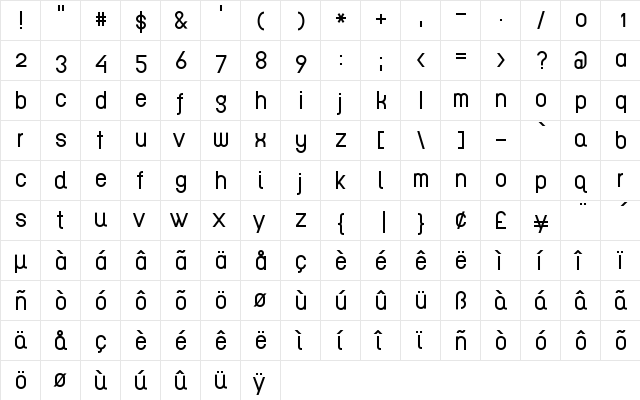
EPF LC Font Preview
EPF LC
EPF LC Font Details
| Style | LC |
| Foundry | YOFonts |
| Designer | Yamaoka Yasuhiro |
Design Context for EPF Typeface
EPF takes a measured approach to typography — its balanced proportions and neutral character make it a reliable workhorse for both digital and print work.